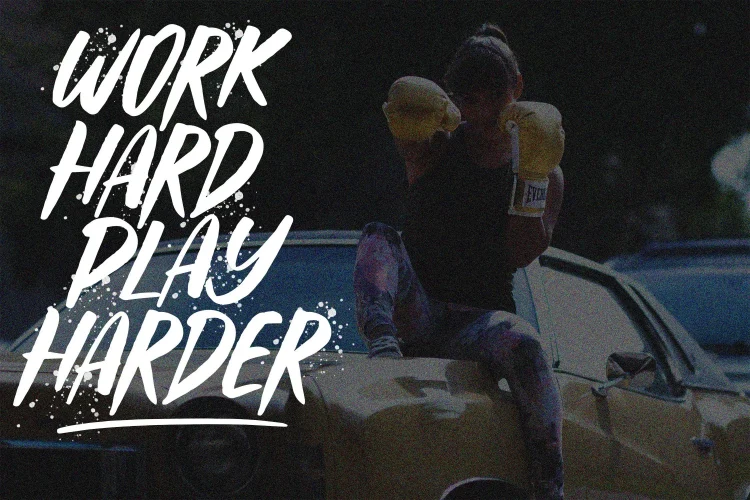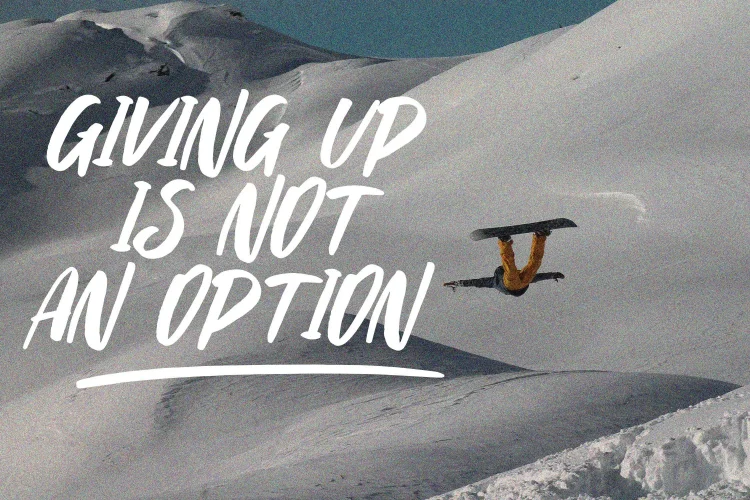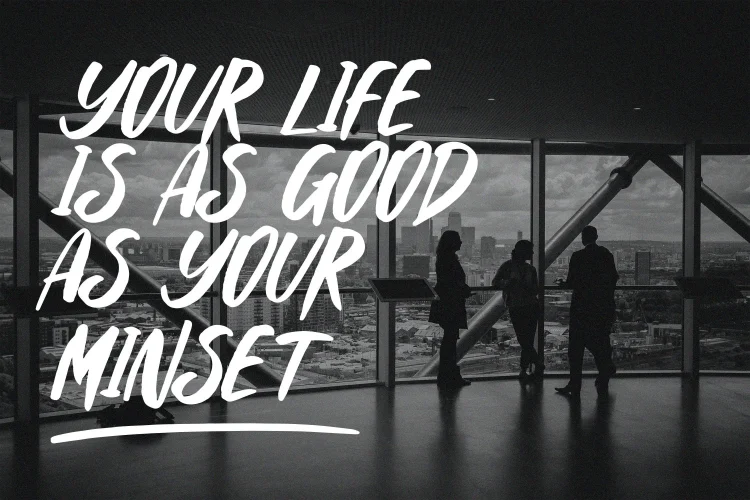
TANGIBLAS is a beautiful handwritten font with brush style. Is a font style that is made with handwritten scratches shapes font characters are very beautiful. Can be applied to support the graphic appearance of the product to be more attractive and unique.
- Ligature
- Stylistic Alternate
- Swashes
- Multilingual Support